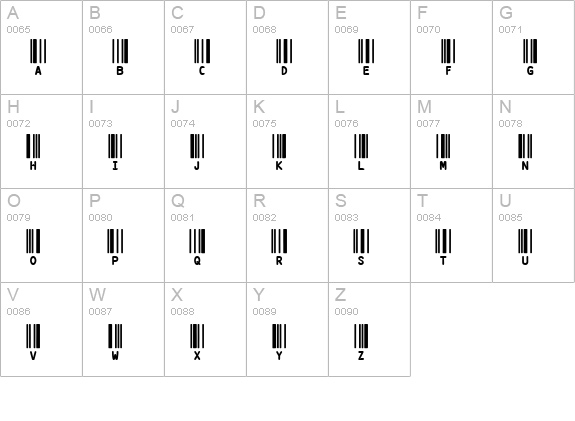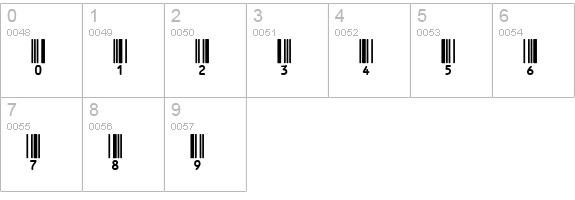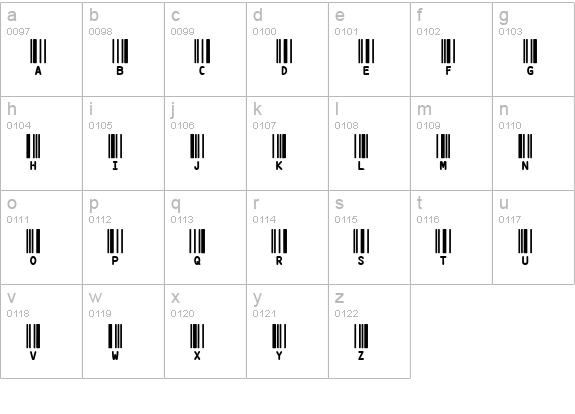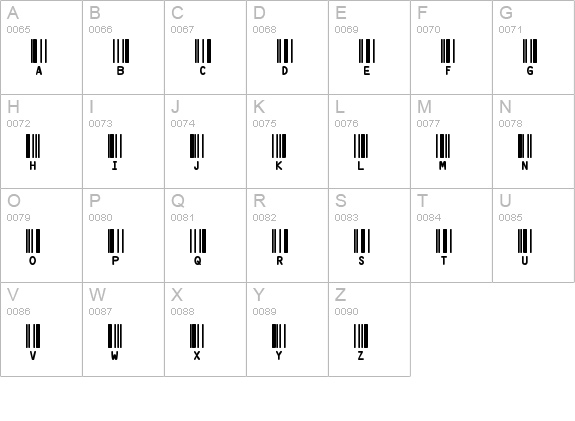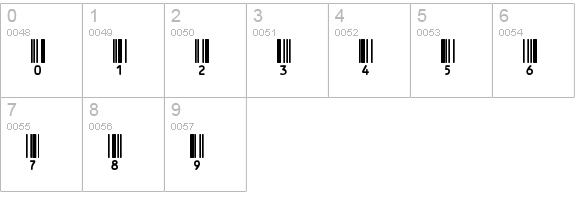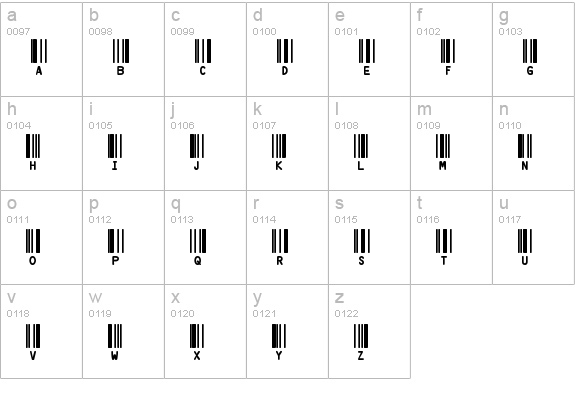
Introducing CODE3X font, a sleek and modern typeface designed for those seeking a cutting-edge look for their projects. With its bold lines and sharp angles, CODE3X exudes a sense of sophistication and innovation. This versatile font is perfect for a variety of design applications, from branding to editorial design. What sets CODE3X apart is not only its striking appearance but also its accessibility. This font is available for free download at FontsMarket.com, making it easy for designers and creatives to incorporate it into their work without any barriers. Whether you're working on a website, presentation, or print project, CODE3X is sure to make a bold statement and elevate your design to the next level. Don't miss out on this opportunity to enhance your projects with the unique style of CODE3X font. Download it for free today and unleash your creativity like never before!